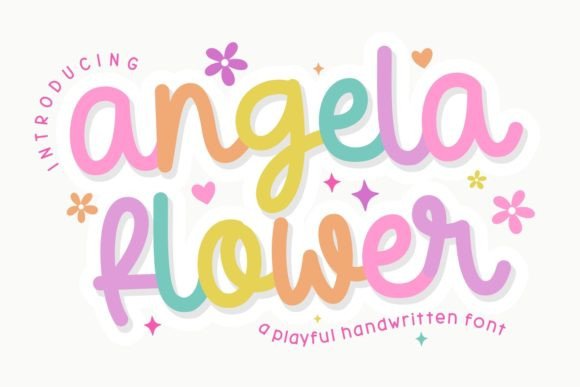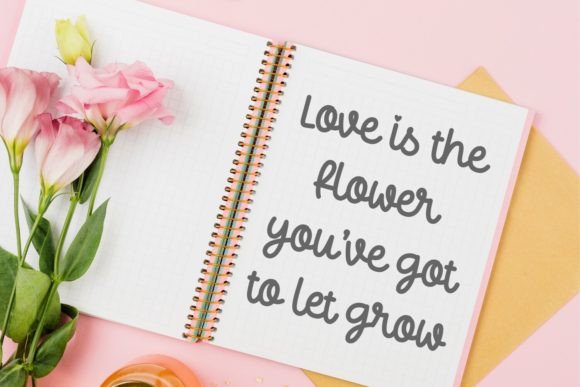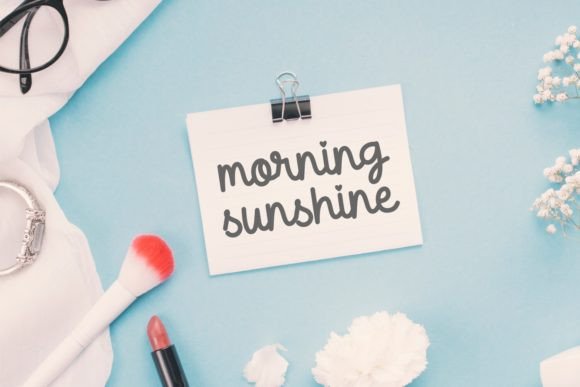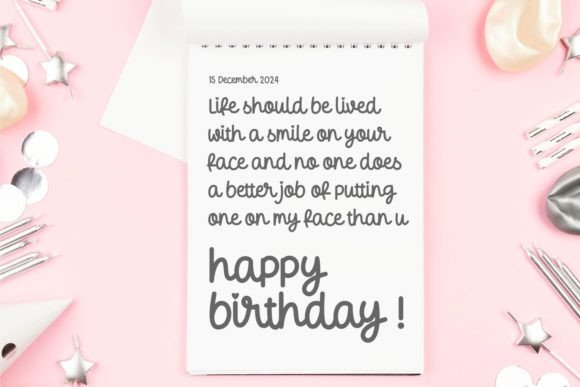
Angela Flower Font
Immerse yourself in the cozy glow and enchantment of Angela Flower, a daring yet spirited handcrafted font that infuses your creations with a delightful spark. With its vivacious cursive mannerism, it makes a matchless fit for logos, social media illustrations, and artisan projects, bestowing a singular, imaginative touch to your craftsmanship. Regardless of your platform, be it Procreate, Cricut, or Canva, Angela Flower stands as your first choice for producing colorful, captivating typography.